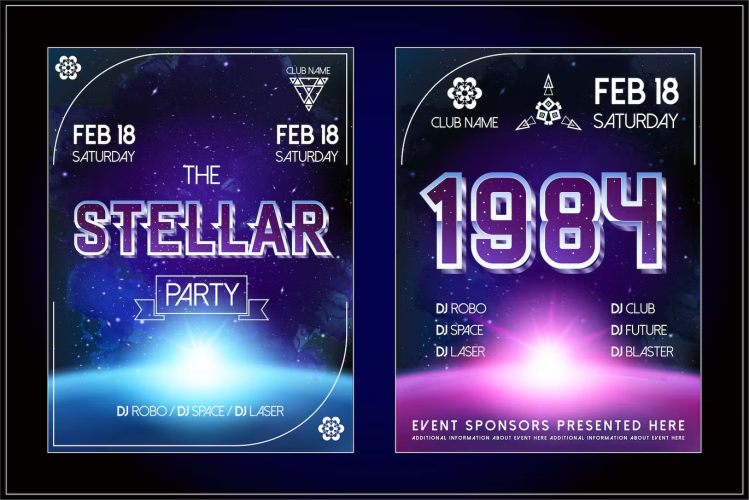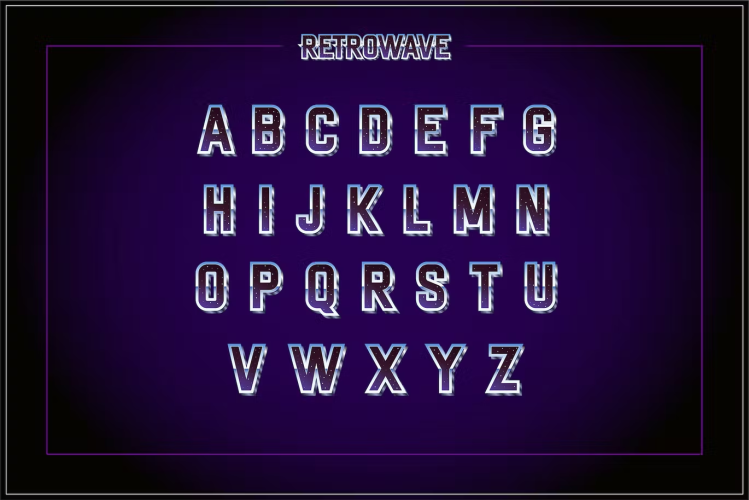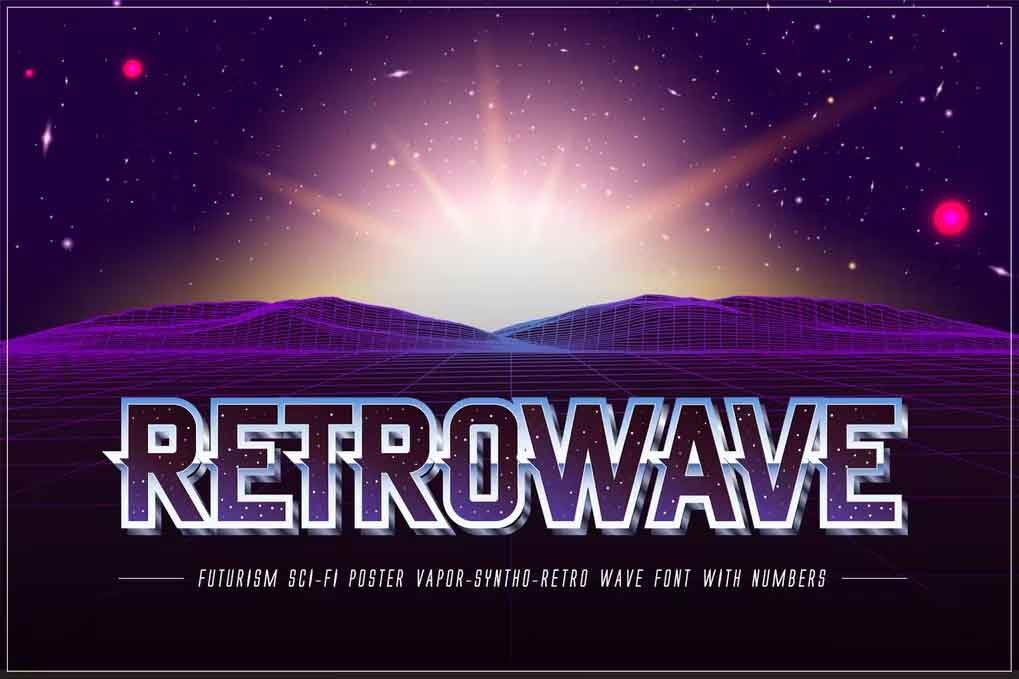
Retrowave Poster Font
Where Retrowave Poster Font works best
Event & seasonal design
Retrowave Poster Font suits themed posters, holiday campaigns, festival identities and party invitations.
Game & entertainment titles
Decorative letterforms are a natural fit for game logos, movie-style titles and merch.
Packaging accents
Use Retrowave Poster Font sparingly for product names or flavour labels that need personality.
What is Retrowave Poster Font good for?